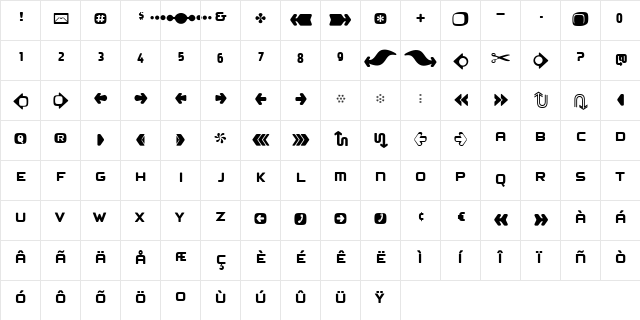
Mayo Regular Font Preview
Mayo Regular
Mayo Regular Font Details
Design Context for Mayo Typeface
Mayo offers clean, dependable letterforms without strong stylistic allegiance, making it a practical choice for designers who need flexibility.
Pro Tip: Use Mayo in both headline and body roles to test its range before committing to a single application.